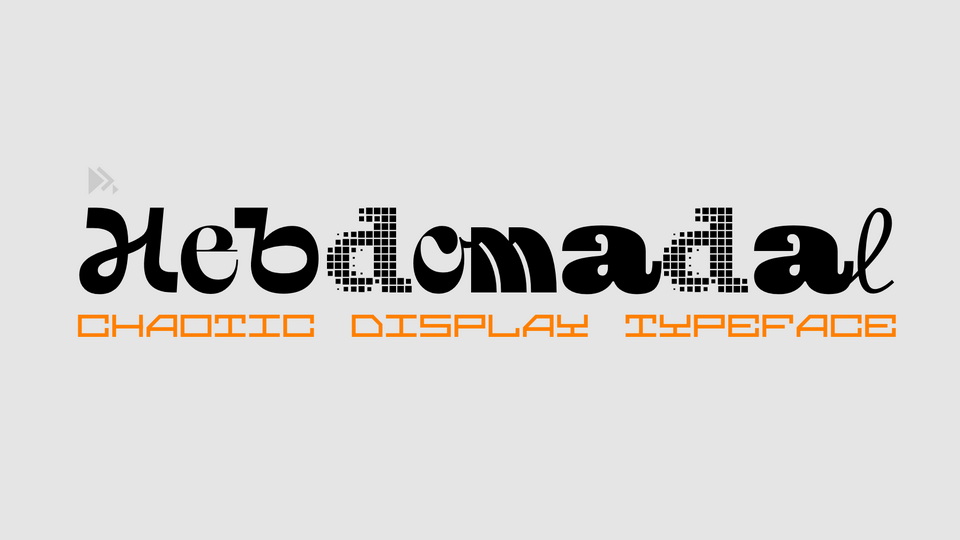
Download Hebdomadal font, a result of trying to design something different every single week, for 52 full weeks of 2024: this conglomeration of a display typeface.